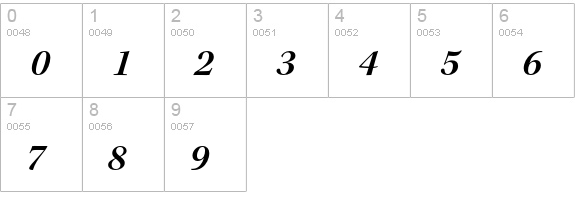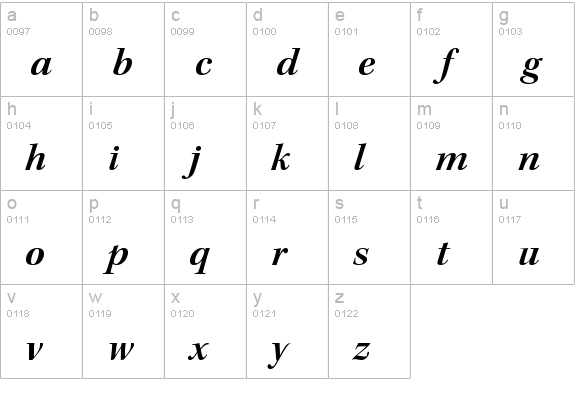
Kepler Std Semibold Italic Subhead Font Details
Kepler Std Semibold Italic Subhead is a sub-bold, structured, italic variant in the Kepler typeface family \xE2\x80\x94 well suited to sub-headlines and emphasised passages.
Kepler Std Semibold Italic Subhead is a remarkable font that effortlessly combines elegance and versatility. With its unique and distinctive design, this font is perfect for adding emphasis and visual interest to subheadings and titles. The semi-bold weight adds a touch of boldness without overpowering the overall design. The italicized style of Kepler Std Semibold Italic Subhead infuses a sense of movement and dynamism to your text, making it stand out from the crowd. Whether you're designing a magazine spread, creating eye-catching headings for a website, or working on a branding project, this font is sure to make a lasting impression. One of the best things about Kepler Std Semibold Italic Subhead is that it is freely available to download at FontsMarket.com. This means that you can bring its beauty and functionality to your projects without breaking the bank. With just a few clicks, you can access this font and enhance your designs with its professional and modern aesthetic. The attention to detail in Kepler Std Semibold Italic Subhead is evident in its carefully crafted letterforms and balanced proportions. Each character is thoughtfully designed to ensure legibility and readability across various mediums and sizes. This font is equally suited for both print and digital projects, making it a versatile choice for designers of all backgrounds. Whether you're a professional designer or a hobbyist, Kepler Std Semibold Italic Subhead will elevate your typography game. Its elegant and sophisticated style will add a touch of class to any project, while its italicized subhead variant brings a dynamic flair. Download this font for free at FontsMarket.com and unlock its potential to transform your designs into works of art.